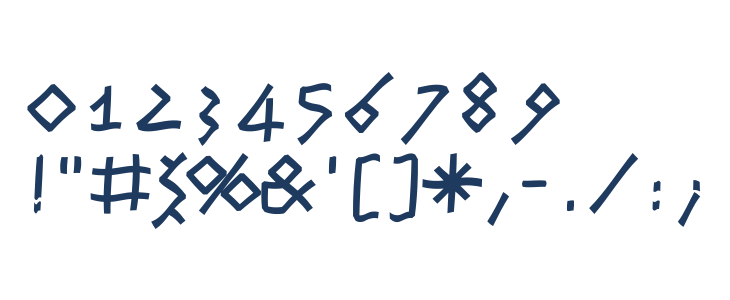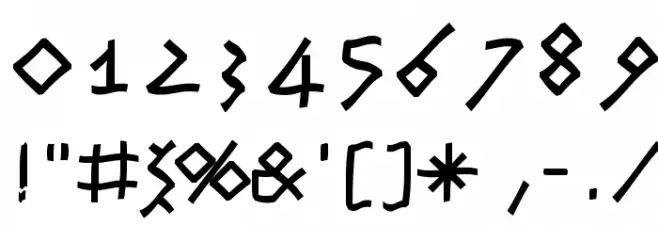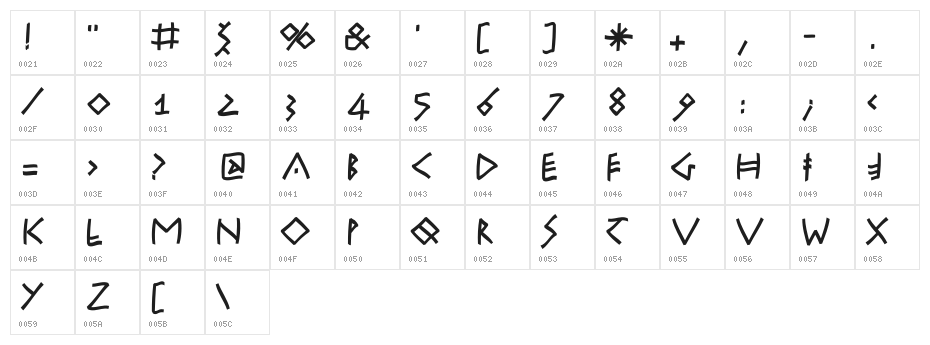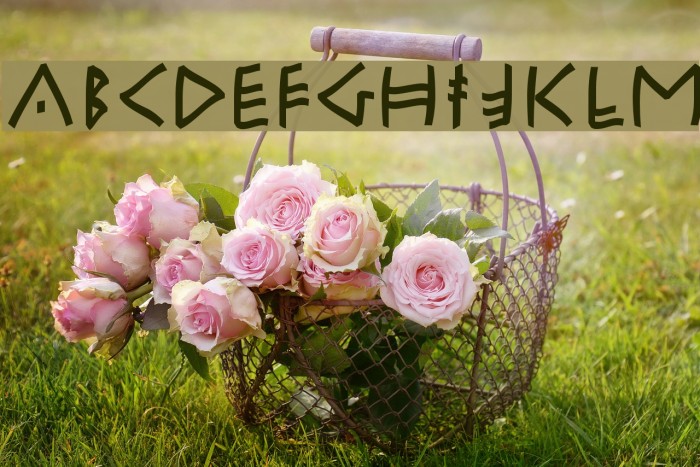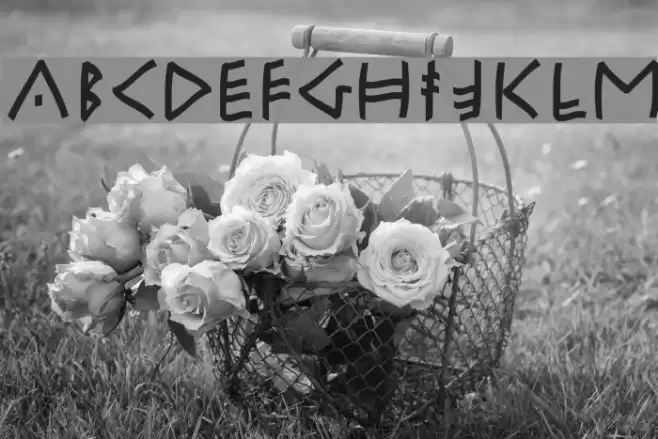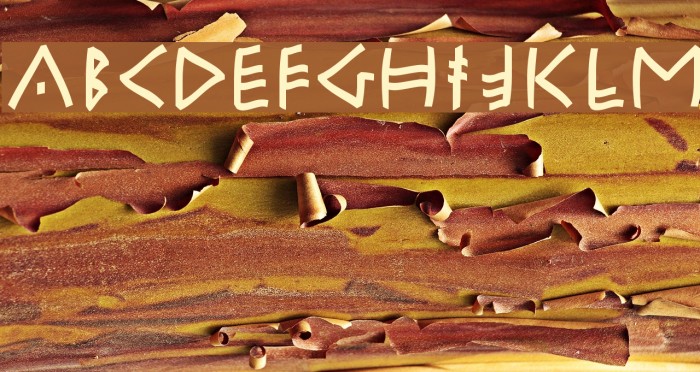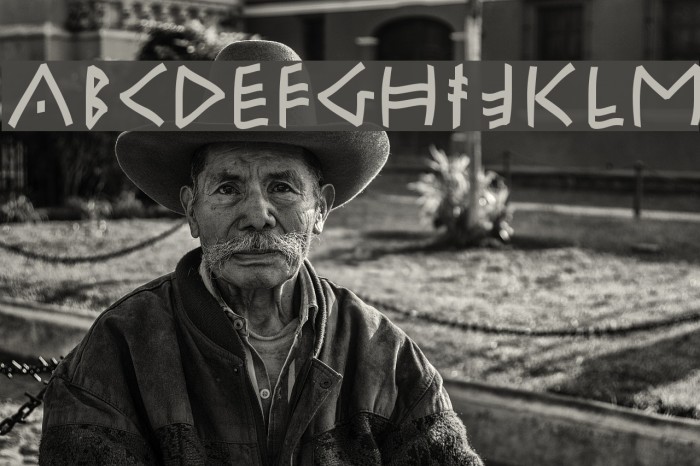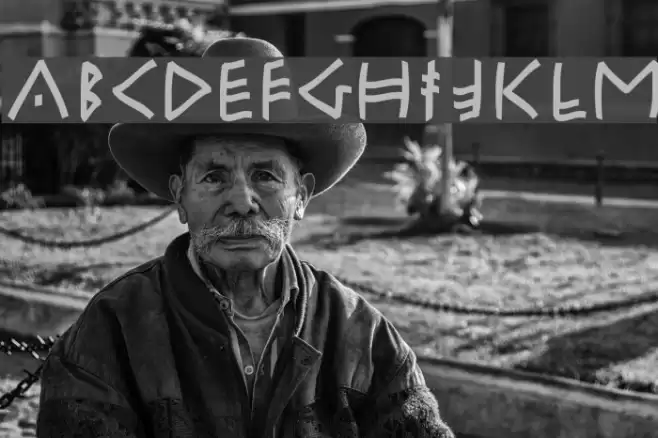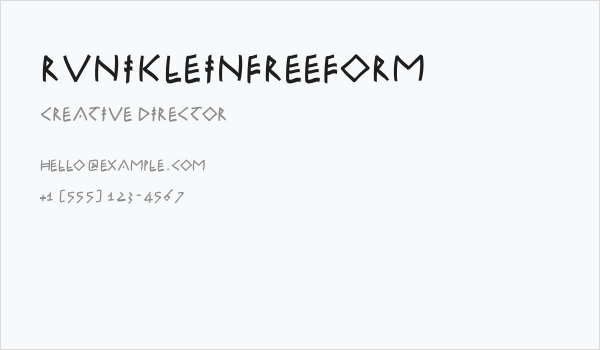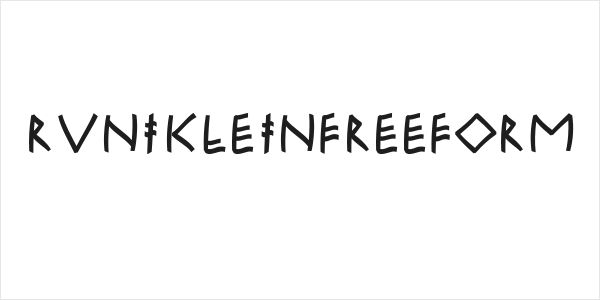
RuniKleinFreeform Font
RuniKleinFreeform Description
This font features a unique and expressive style reminiscent of ancient runic alphabets. The characters are angular and bold, with a hand-drawn appearance that adds a sense of authenticity and historical depth. Each letter is distinct, with sharp edges and varying line thicknesses that create a dynamic and engaging visual effect. The numerals and special characters maintain this stylistic consistency, ensuring a cohesive look across all text. This font's design is both artistic and functional, making it suitable for projects that require a touch of the mystical or historical.
| Use Case | Headlines, Logos, Themed Events |
| Proposed Projects | Ideal for fantasy-themed designs, historical projects, game titles, or any creative work that benefits from a mystical or ancient aesthetic. |